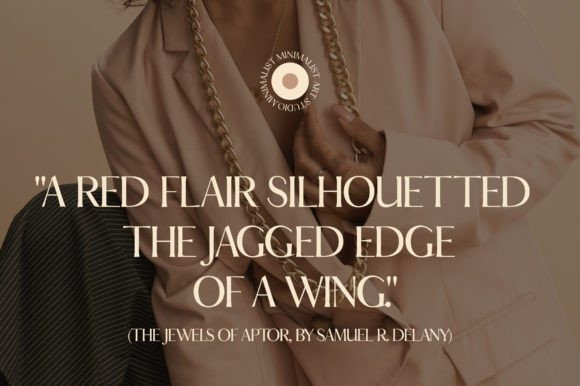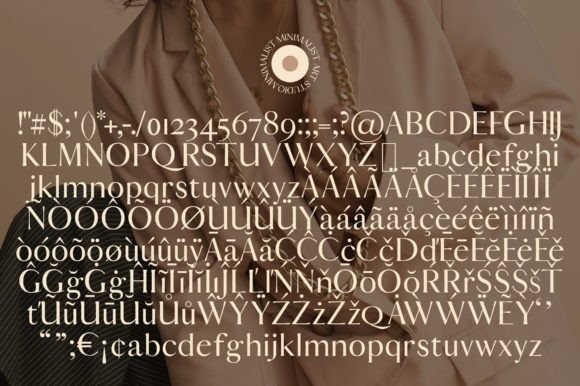
Fendo Font
Fendo Font, a beautiful and sophisticated serif font that adds a touch of elegance to any design project. With its clean lines and minimalist design, Fendo is the perfect choice for branding, advertising, editorial, and web design.
Fendo features classic serifs that are delicate yet strong, giving your designs a timeless look. The font includes uppercase and lowercase letters, numbers, and punctuation, making it ideal for logos, headlines, and body text.
Fendo is highly versatile, with a clean and minimalist style that works well for both traditional and contemporary designs. The font is great for both large and small projects, from billboards to business cards.